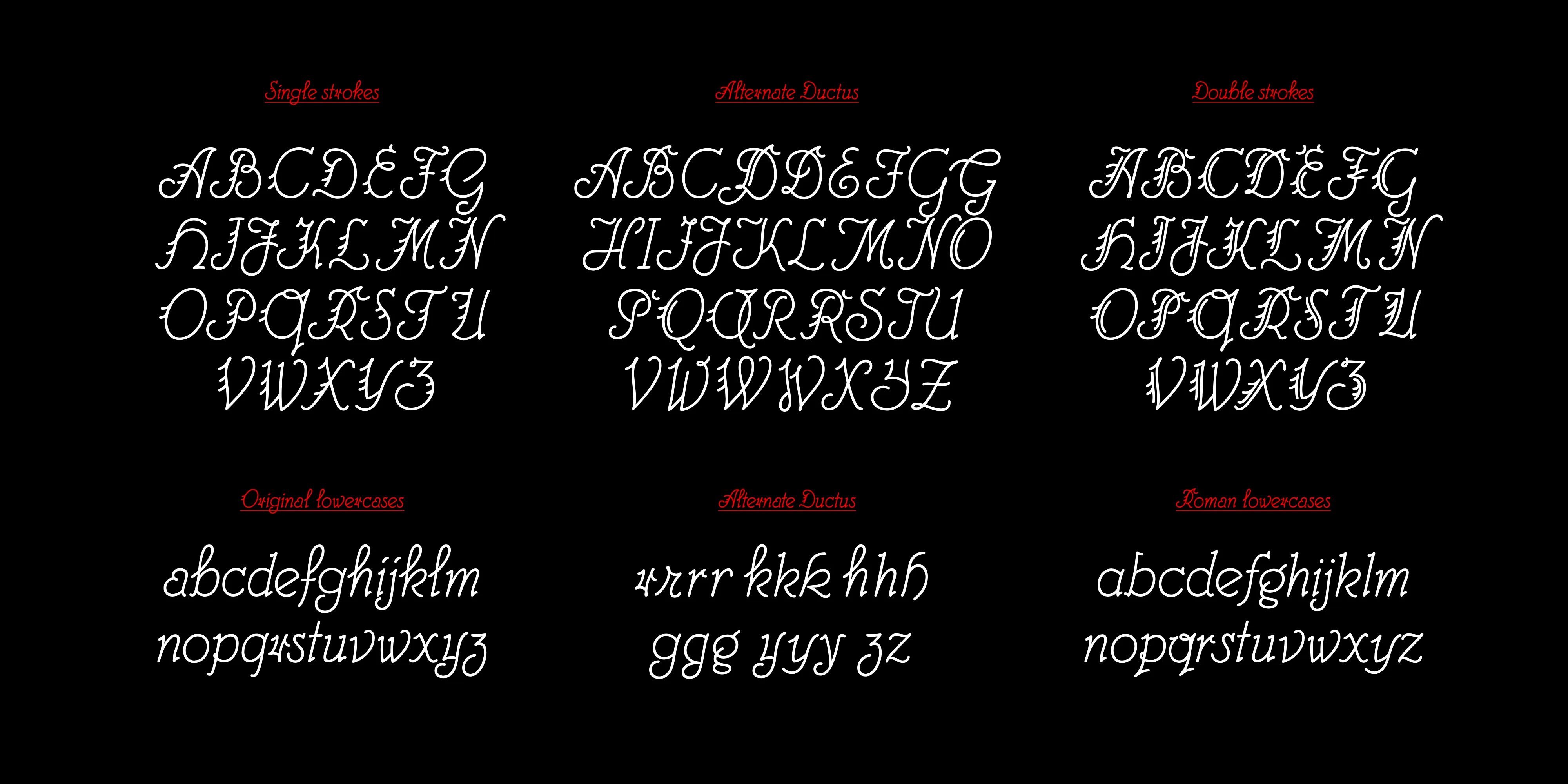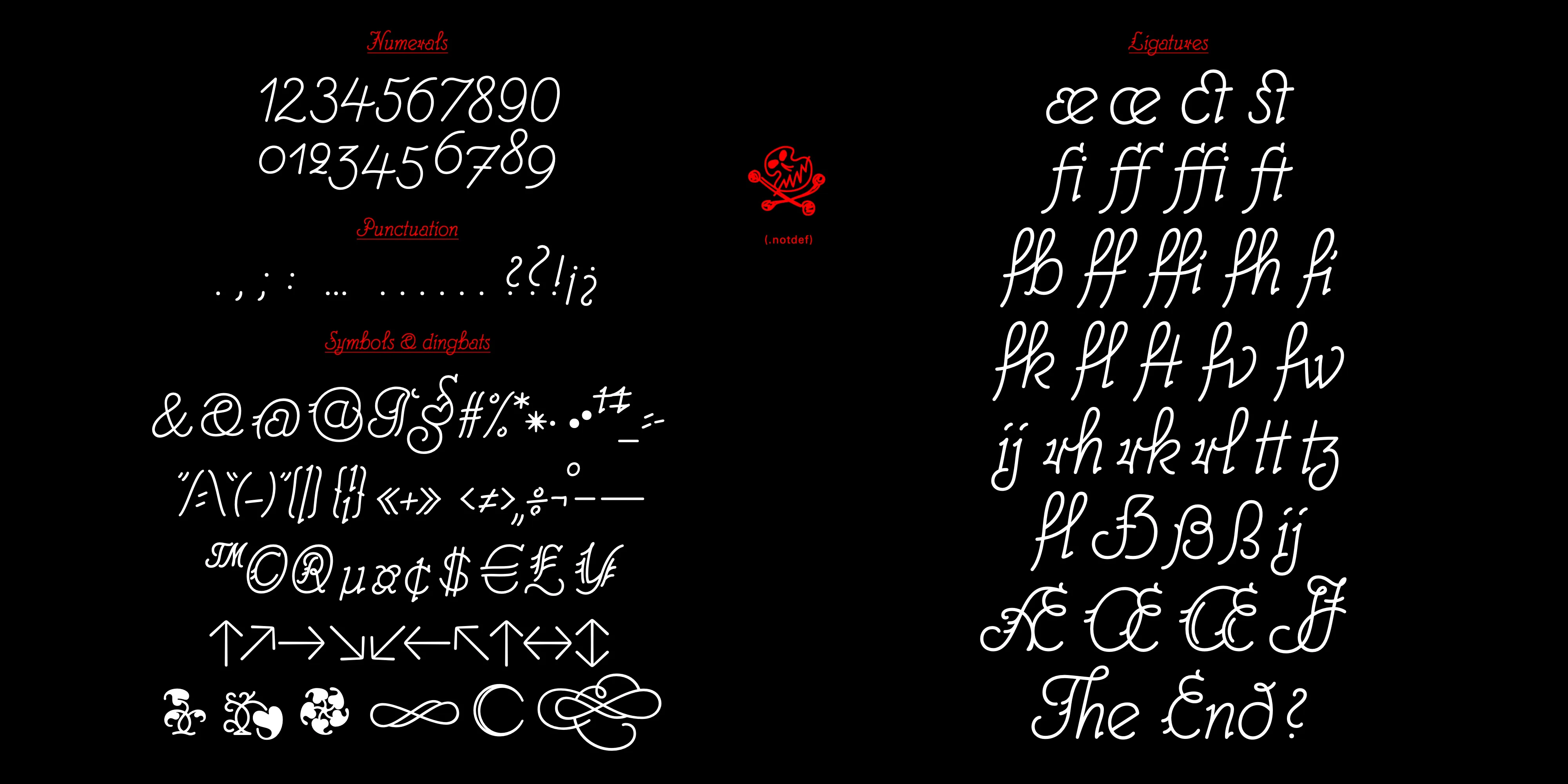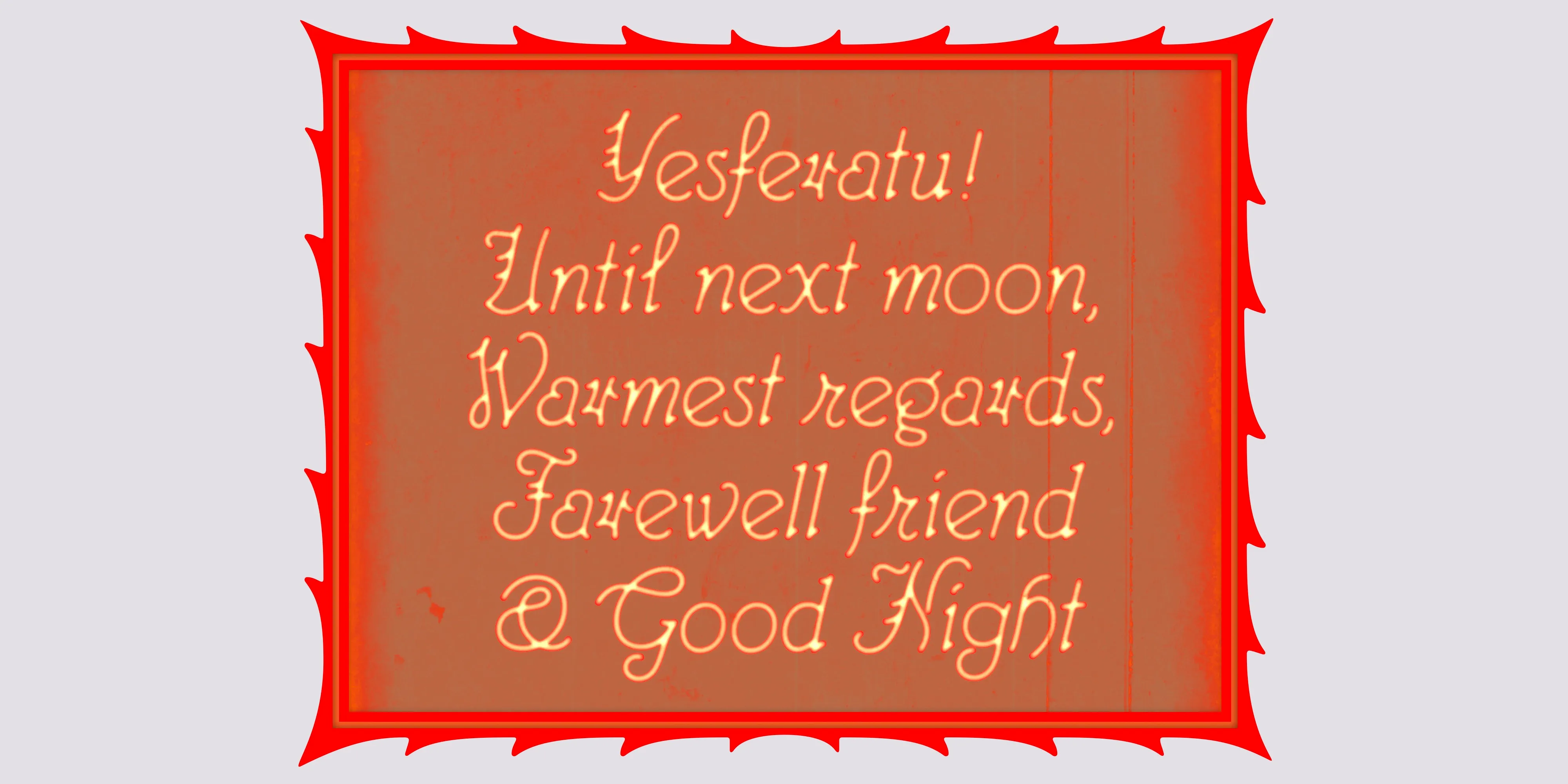
Nosferatu: Making of a font
If a typeface could die, might it revive?
Nosferatu is a Romanian word meaning “the undead.”
Nosferatu is an historical script revival, a vampire font if you will. It carries stories of the Fraktur and Gothic letterforms, as well as memories of the Kurrent and Sütterlin German handwriting. It also tells the story of how the new disc-shaped nib became popular among lettering artists who were in charge of writing the words on the screen for silent movies.
The idea for of this font was initiated at  the ANRT (Atelier national de recherche typographique) in 2022 when Sarah Salomé Delétain was collaborating on Julien Van Anholt’s research on hand-painted silent film intertitles — a typographic analysis of painted intertitles. Sarah Salomé chose Nosferatu from a corpus of movies with various types of lettering, and later collaborated with Jules Durand to complete the font.
This article will focus on the intertitles of Nosferatu : A Symphony of Horror, directed by Friedrich Wilhelm Murnau in 1922, as an unauthorized adaptation of Bram Stoker's novel Dracula (1897). The author’s widow unsuccessfully tried to get all copies of the film destroyed. It has become one of the most emblematic films of German Expressionism, thanks in part to the unforgettably horrific performance (and makeup) of Max Schreck as one of the first vampires in film history. Shot on a limited budget with only one camera, Nosferatu uses light, shadow, time, type, movement and suspense to portray horror, rather than complex sets or special effects. The special touch of this movie is the role of colors, the films were tinted with green, yellow and red ink, typical of the expressionist aesthetic, it lends to the original lettering a fantastical aura and a slightly bolder appearance.
The name of the calligrapher in charge of the intertitles is often obscured and in Nosferatu’s case, it doesn’t appear in the credits, but presumably it was Albin Grau who oversaw this design choice. As producer, art director, costume designer, graphic designer, and occultist-in-residence, he was responsible for the look and spirit of the entire film. However, it’s doubtful that he painted the actual intertitles that inspired our Nosferatu revival.
Grau's meticulous attention to detail is unparalleled, as evidenced by his cryptic contract between Count Orlok and Knock, which he filled with Enochian, hermetic, and alchemical symbols. Although it is clear that there is an inconsistency between the various writing forms featured throughout the movie, it seems most likely they collaborated with
To clarify this point, let’s look at the first posters signed by Albin Grau, which are dark, made in chalk, and display the texts and title on a wavy baseline. The letters are hand-drawn with a blurry mono linear stroke, full caps, and a peculiar triangular horizontal stroke on ‘A’.
On another version of the poster, Grau set the title in Herold a.k.a. Reklameschrift Herold type, cast by Berthold in 1901. Later on, this type was used for the opening title screen of the English version and became the official logo of the movie.
Thus, looking at Grau’s handwriting skills, there is a serious gap with the movie’s intertitle, either those on black background and the manuscripts on green & yellow background, which were executed with great calligraphic mastery. Although there is no doubt about Orlok’s cryptic/esoteric contract that Grau claimed to have done.
It seems likely that Murnau and Grau hired a lettering artist. This person was never credited in the film, and they didn't work on the promotional materials that Albin Grau produced on his own. So the choice of this rounded script was probably a stylistic choice of Grau to integrate the written language of the film into the same occult-inflected Weimar aesthetic. The investigation in this article tends to gather accurate references that help to explain the choice of this calligraphic style for Nosferatu.
Let's go back to Weimar, when cinema was still in its early days, and directors were fascinated by ghost stories, golems, and vampires. The German expressionist film movement started in Germany in the 1920s, producing the first Gothic horrors movies. To compensate for the absence of recorded sound, the production relied on descriptive intertitles to evoke auditory effects, onomatopoeias and plots such as the "howling of wolves" or "creaking coffins,".
«"The ideal picture needs no titles."
In other words, the perfect film dispenses with intertitles. This statement by Friedrich Wilhelm Murnau (1888–1931), made in Theatre Magazine in 1928, succinctly summarizes the German director’s views on intertitles—views he sought to put into practice in his own work. Yet, despite this skepticism, Murnau created films in which intertitles play a pivotal role; they always feel formally right, contributing to the cinematic experience just as the images do.»
« Et quand il eut dépassé le pont,
les fantômes vinrent à sa rencontre. »
« Kaum hatte Hutter die Brücke überschritten,
da ergriffen ihn die unheimlichenGesichte,
von denen er mir oft erzählt hat. »
“When he was on the other side of the bridge,
the ghosts came to meet him.”